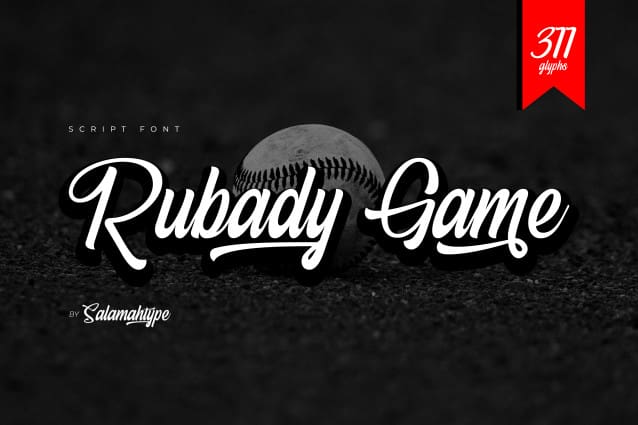
Rubady Game Font
Rubady Game Font is a script font with modern style. This font is perfect for logo, sports theme website/store, watermark, stationery, posters, flyers, social media posts, advertisements, product packaging, branding projects, product designs, label, photography, and so much more.